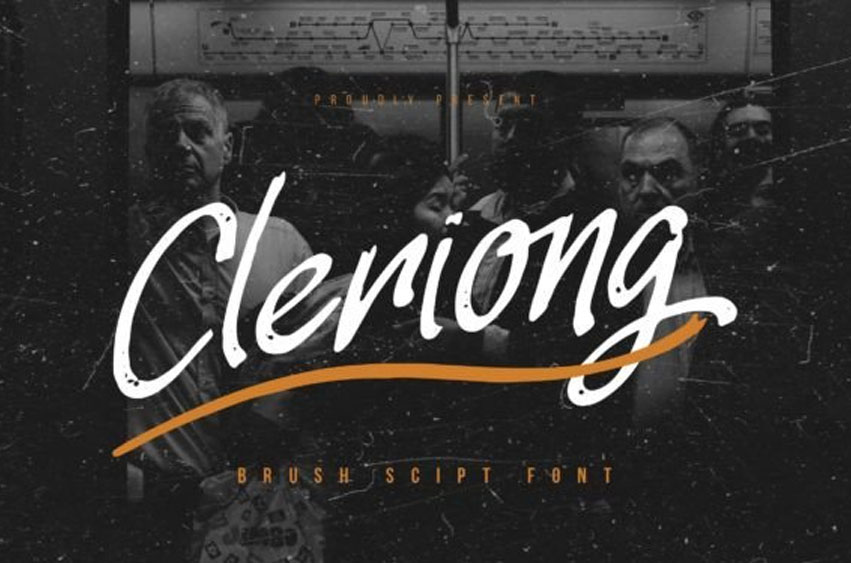
Cleriong Font is a stylish brush script font with smooth, flowing letters.
It’s perfect for adding a personal, handwritten touch to your designs and makes text look elegant and friendly.